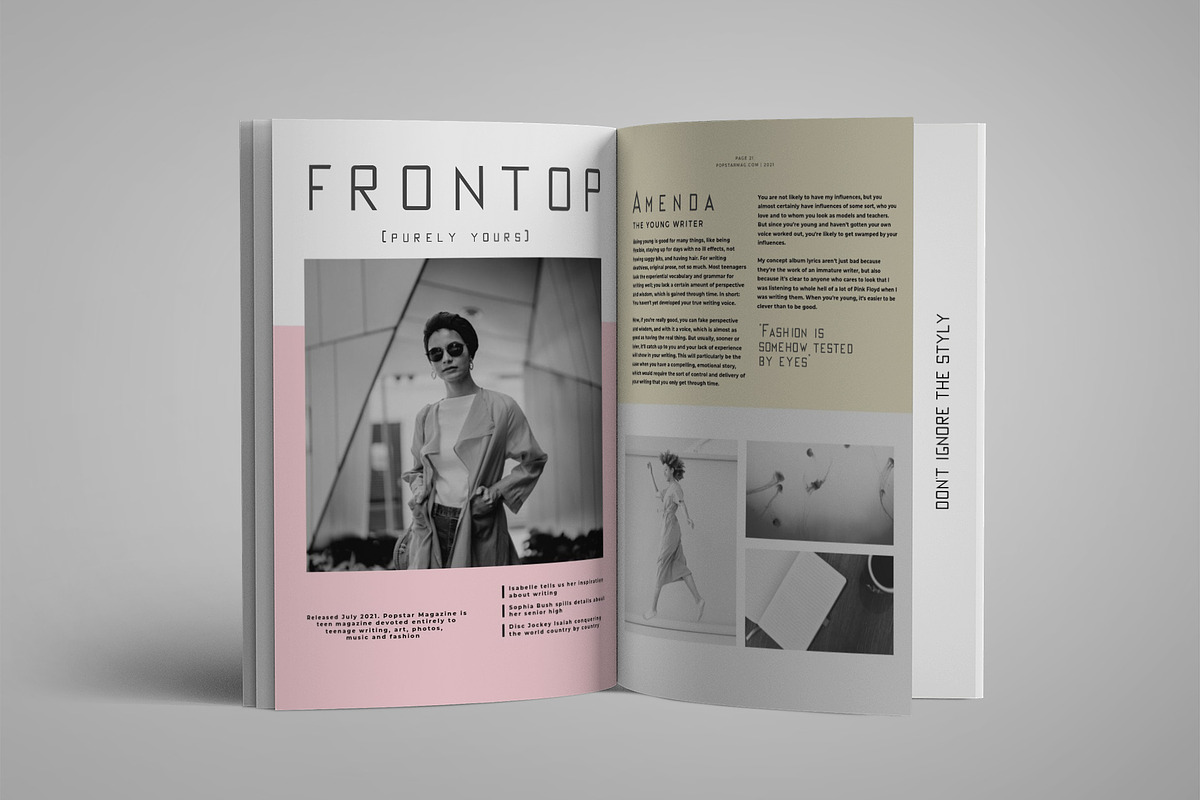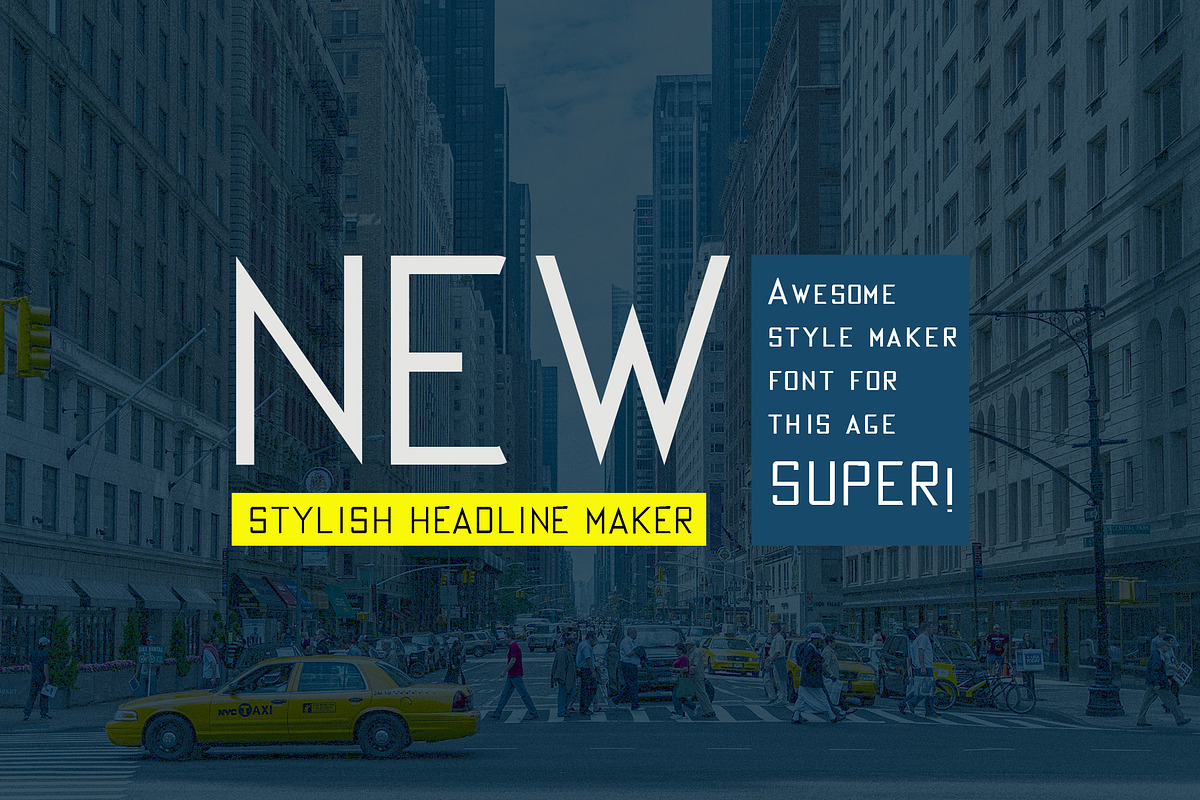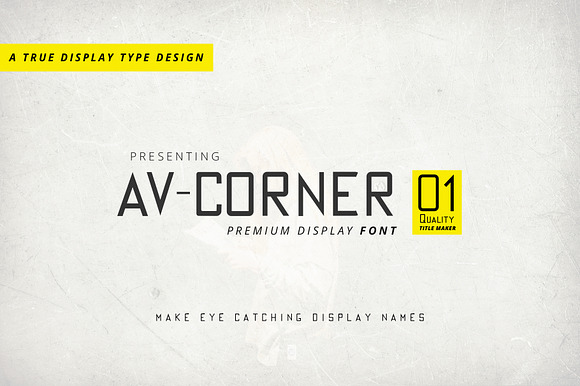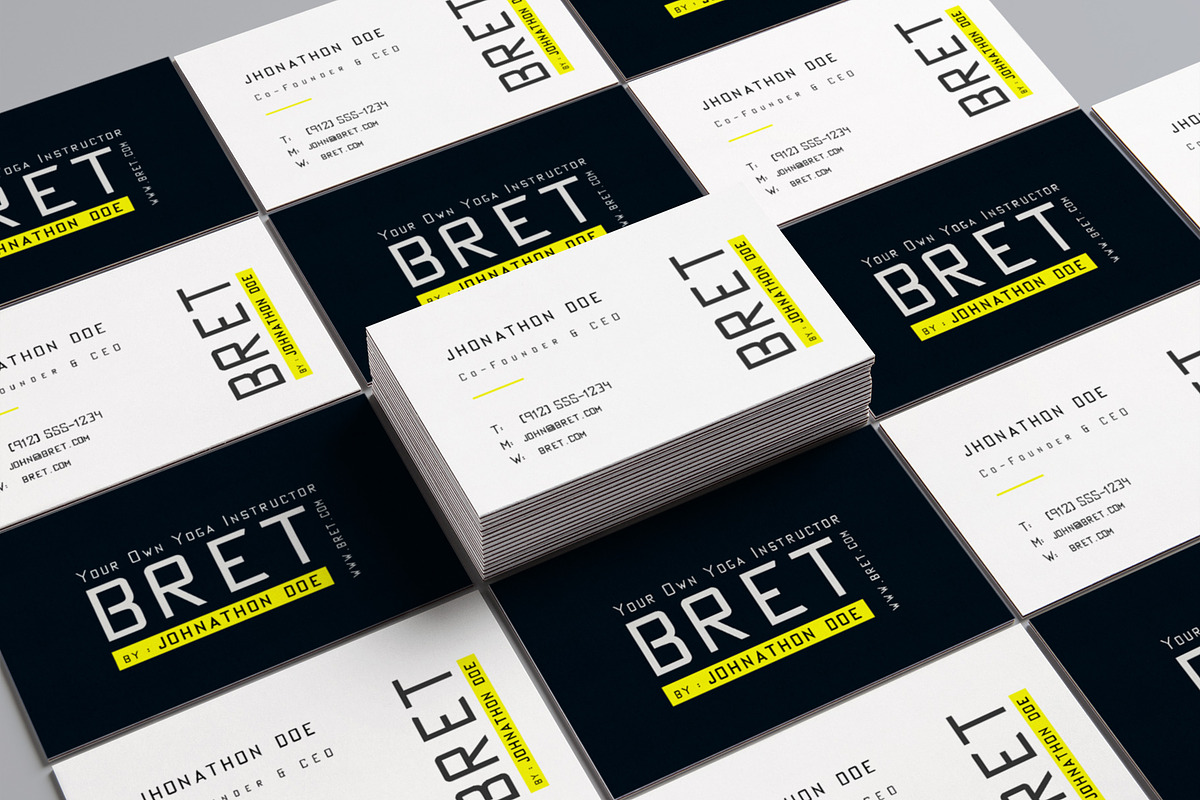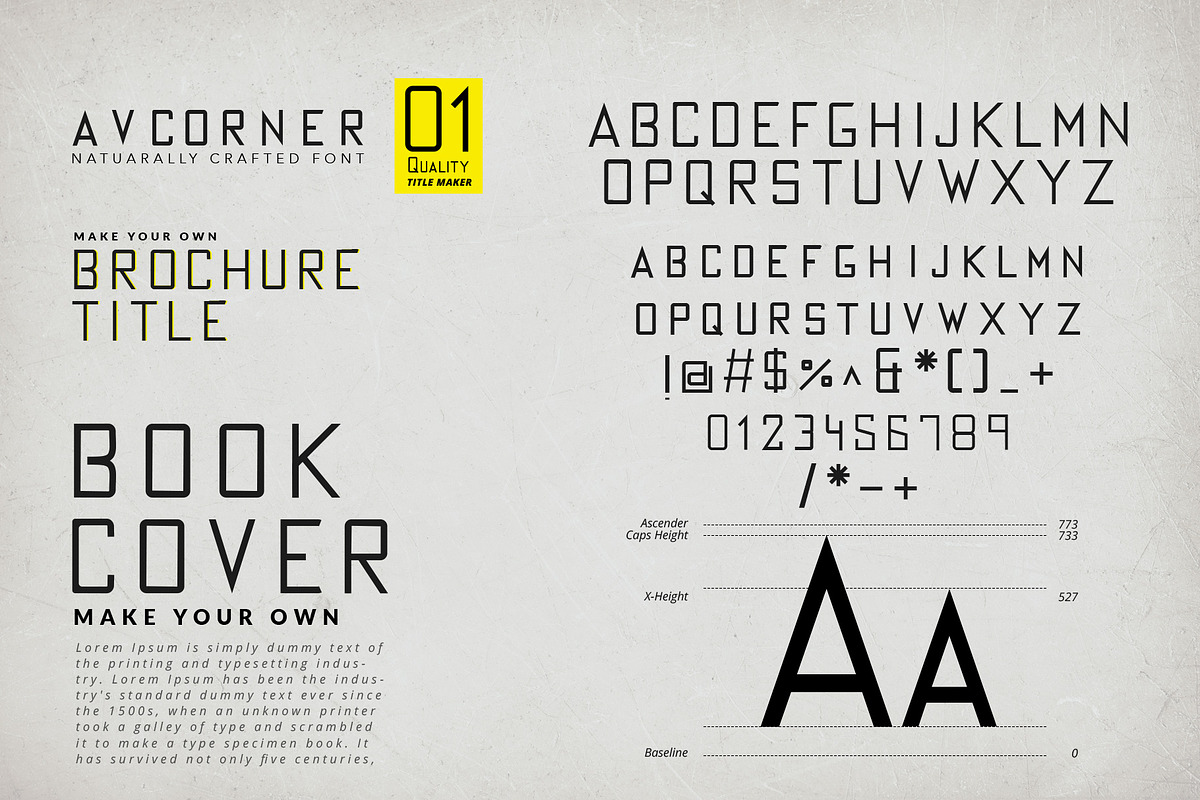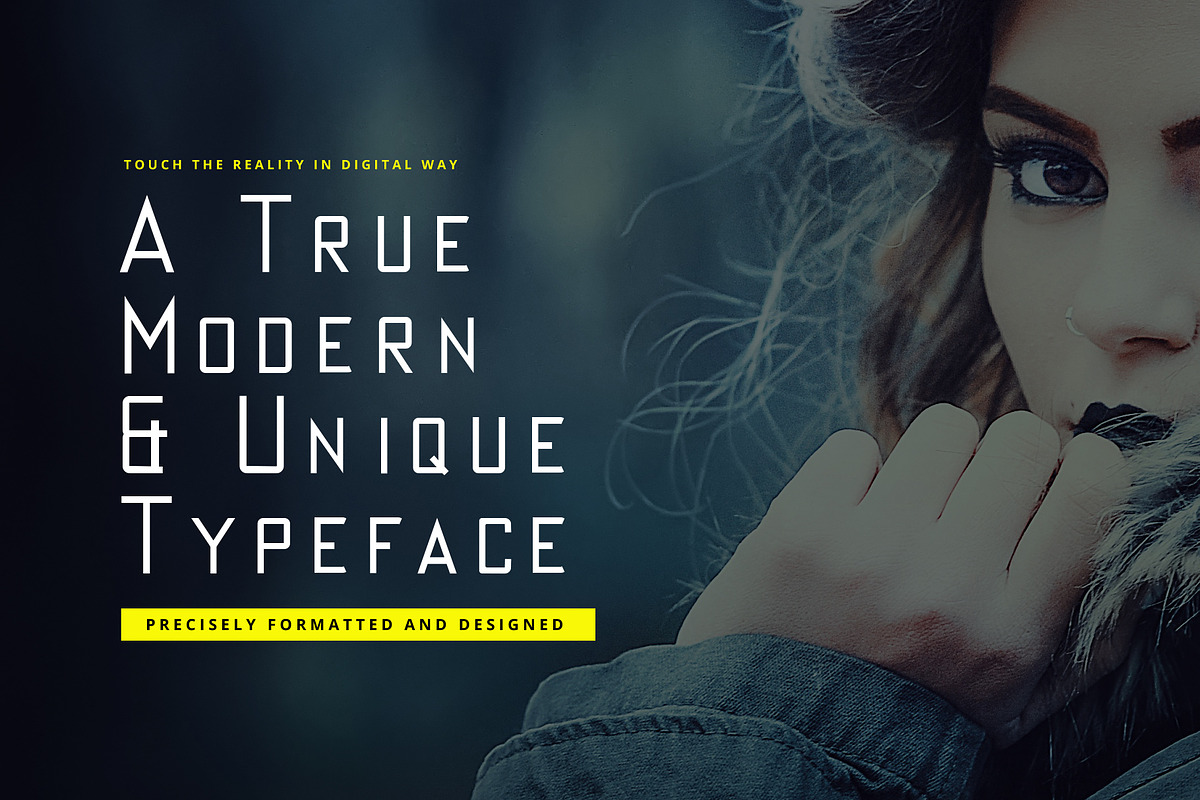
AV-CORNER Tall Display Font
DETAILS: AV Corner font is a sleek tall all caps display font which is created precisely and delicately for logo design, headline design, title design, subtitle design, and many more purposes. AV Corner is especially a tall display font which represents uniqueness among words. AV Corner font letters make texts uniquely different and steal the looks.
AV Corner Regular All Caps with small letters in shorter caps.
Numbers and Symbols are included
AV-CORNER Tall Display Font by Designertale fits naturally into Branding, posters, packaging, typography.